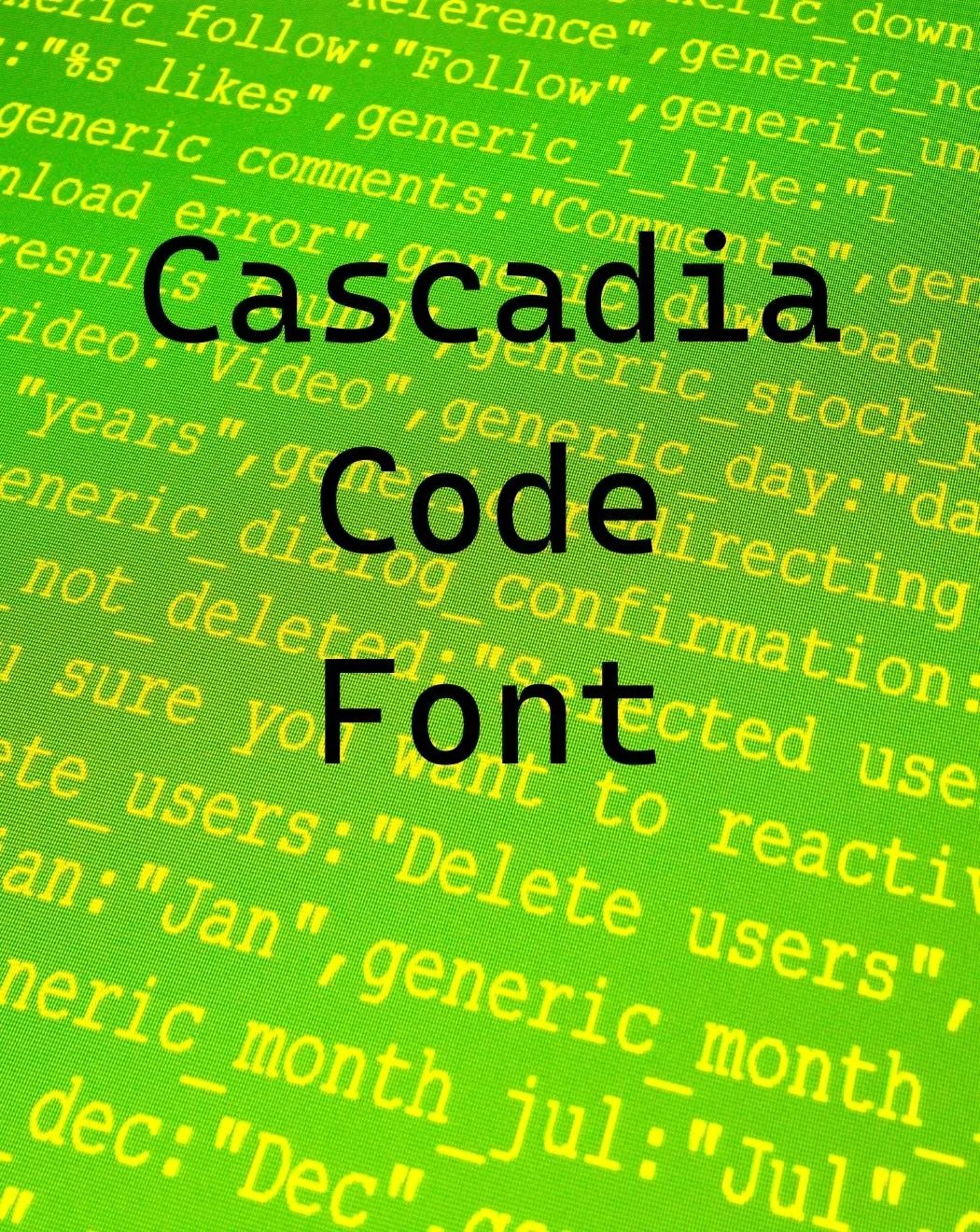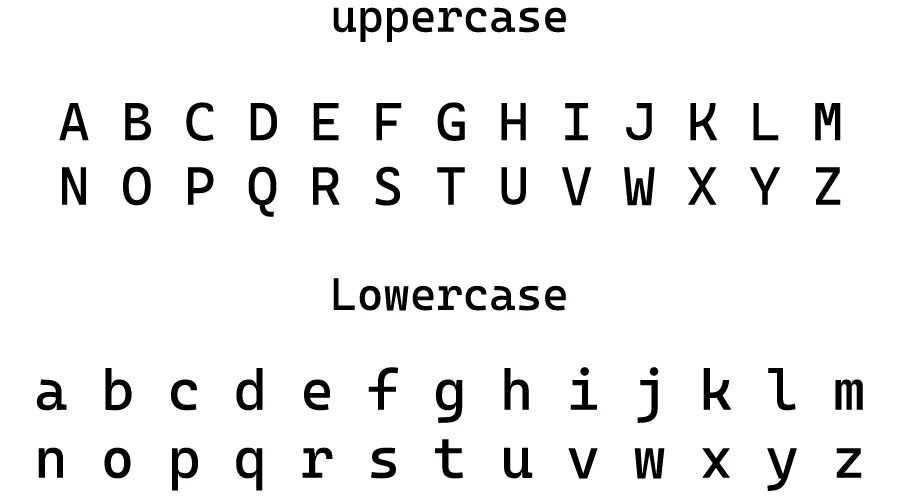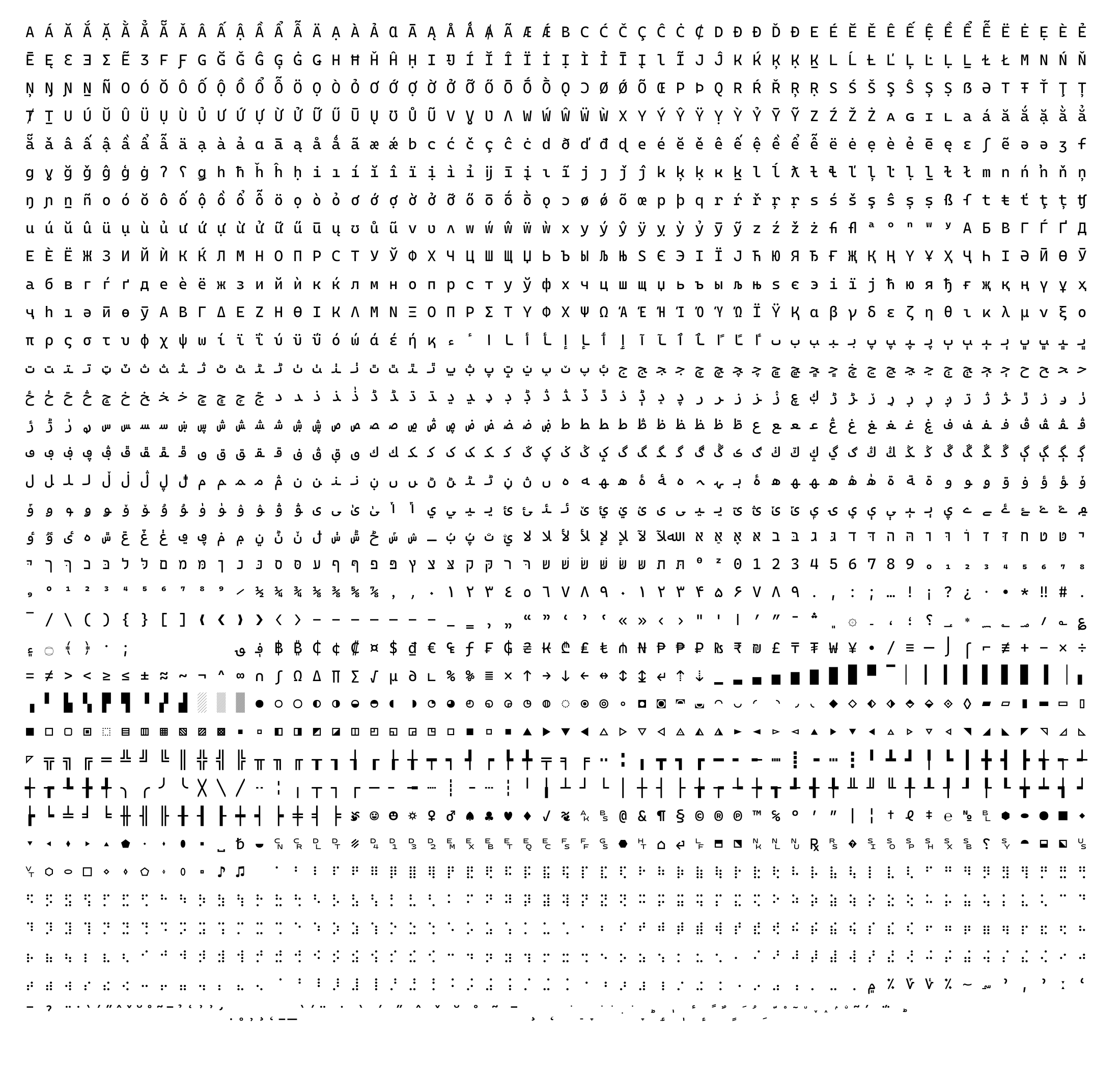
Cascadia Code Font Ligatures Vscode . You have to enable the checkbox to enabling the font ligatures (see the picture above). Enter font face in search field. The good fonts support font ligatures and free are fira code, cascadia code. Font family and type 'fira code' in the field. Cascadia code, fira code will prioritize cascadia code but use fira code if cascadia code isn’t available on the current machine. Enter following in font face option: This is a fun, new monospaced font that includes programming ligatures and is designed to enhance the modern look and feel. Go to file > preferences > settings or hit ctrl + , in vs code. 'cascadia code', consolas, 'courier new',. Once you’ve configured the font you’ll need. The current one i'm using is cascadia code. If you want to provide a fallback font in case fira code is not installed, use a.
Ligatures variants need more explanation · Issue 583 · microsoft Cascadia Code Font Ligatures Vscode Once you’ve configured the font you’ll need. Enter following in font face option: The current one i'm using is cascadia code. This is a fun, new monospaced font that includes programming ligatures and is designed to enhance the modern look and feel. The good fonts support font ligatures and free are fira code, cascadia code. Go to file > preferences. Cascadia Code Font Ligatures Vscode.
Cascadia code font not working or looking good. How to resolve this Cascadia Code Font Ligatures Vscode The current one i'm using is cascadia code. You have to enable the checkbox to enabling the font ligatures (see the picture above). If you want to provide a fallback font in case fira code is not installed, use a. Go to file > preferences > settings or hit ctrl + , in vs code. Font family and type 'fira. Cascadia Code Font Ligatures Vscode.
Cascadia code font for Vscode With Cool Operators VsCode Font Cascadia Code Font Ligatures Vscode The current one i'm using is cascadia code. You have to enable the checkbox to enabling the font ligatures (see the picture above). Go to file > preferences > settings or hit ctrl + , in vs code. Font family and type 'fira code' in the field. This is a fun, new monospaced font that includes programming ligatures and is. Cascadia Code Font Ligatures Vscode.
Comparing the new Cascadia Code font to Fira Code v2 by Mathias Cascadia Code Font Ligatures Vscode 'cascadia code', consolas, 'courier new',. Enter font face in search field. Font family and type 'fira code' in the field. The current one i'm using is cascadia code. Go to file > preferences > settings or hit ctrl + , in vs code. Enter following in font face option: If you want to provide a fallback font in case fira. Cascadia Code Font Ligatures Vscode.